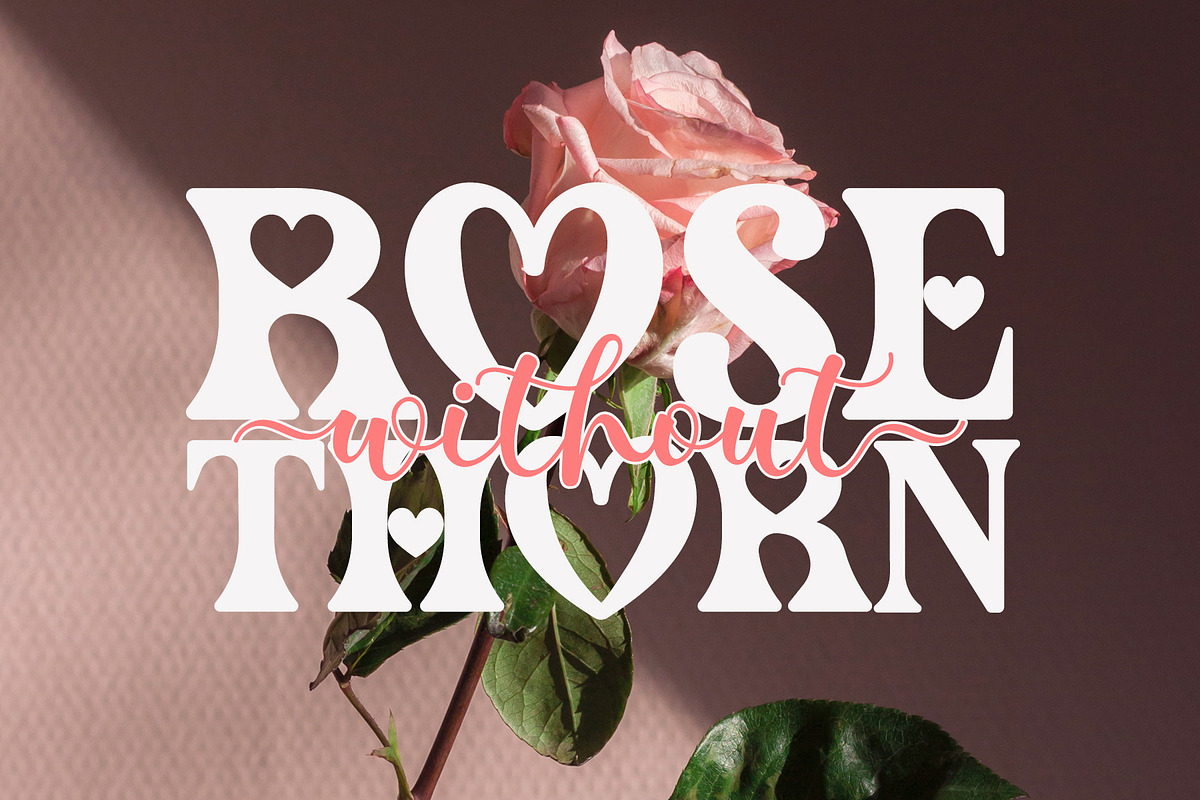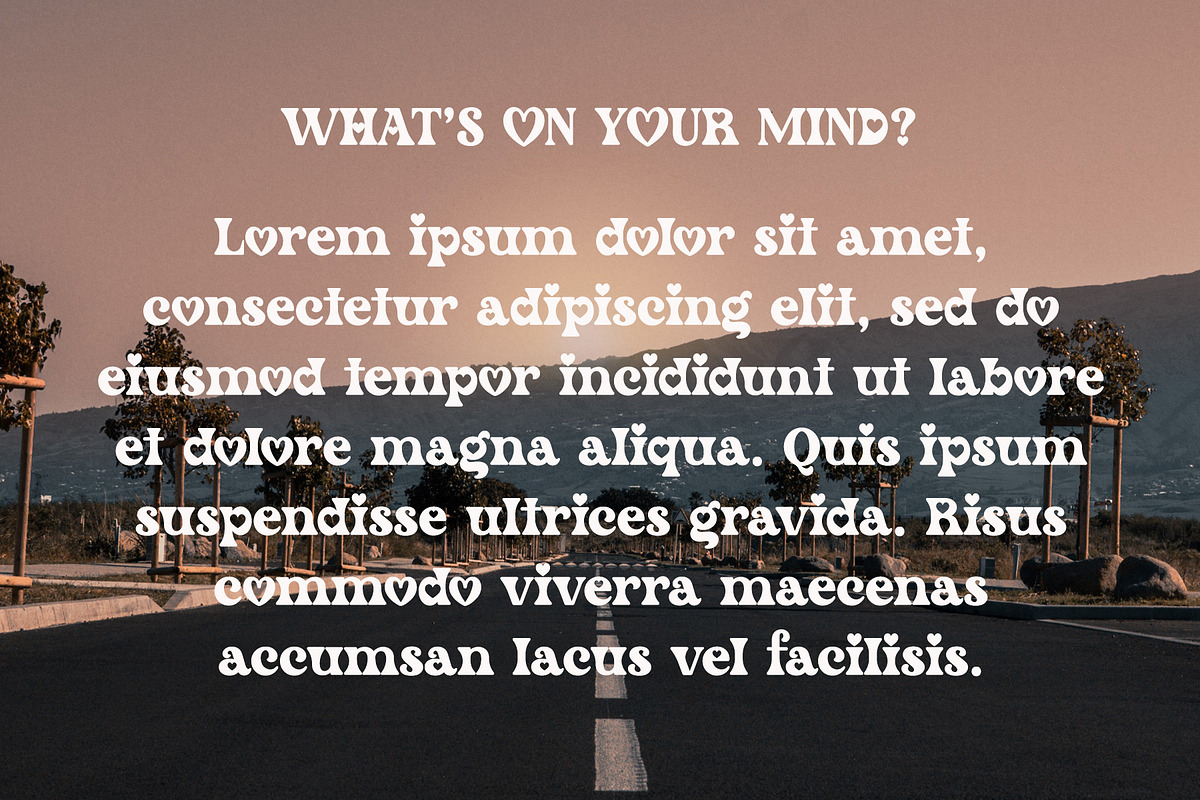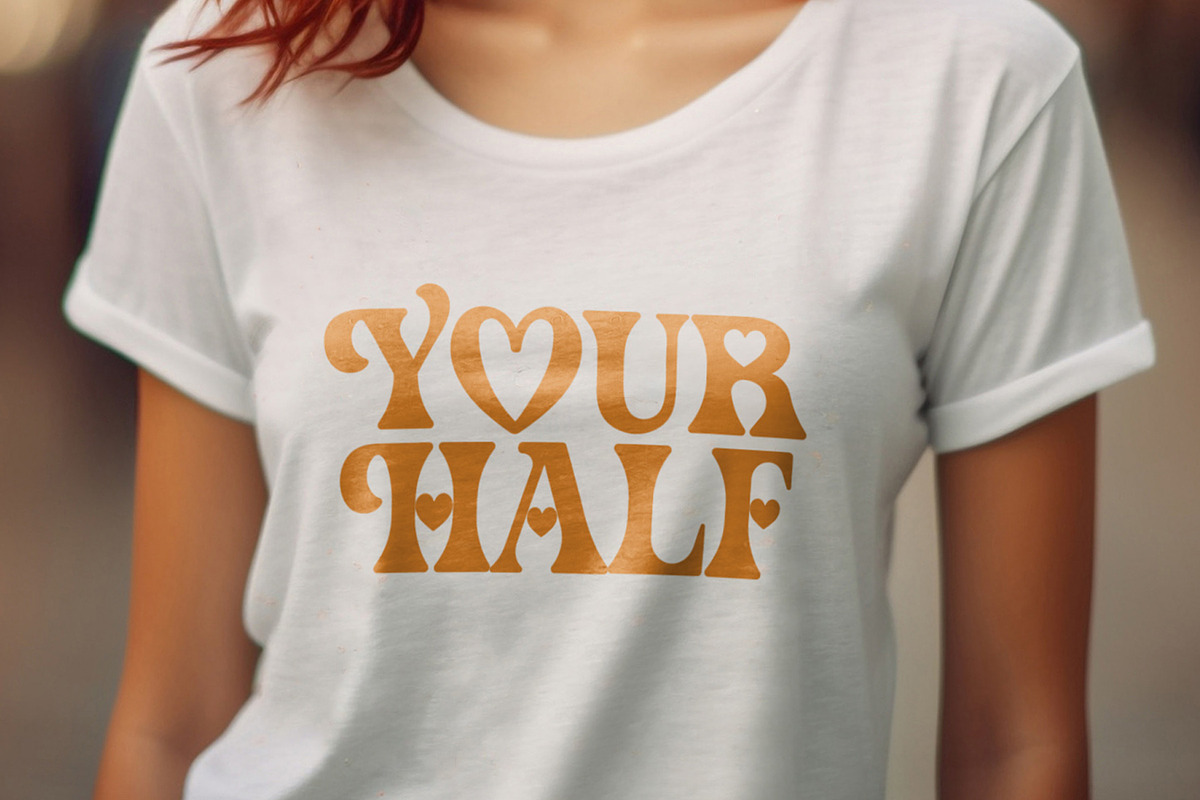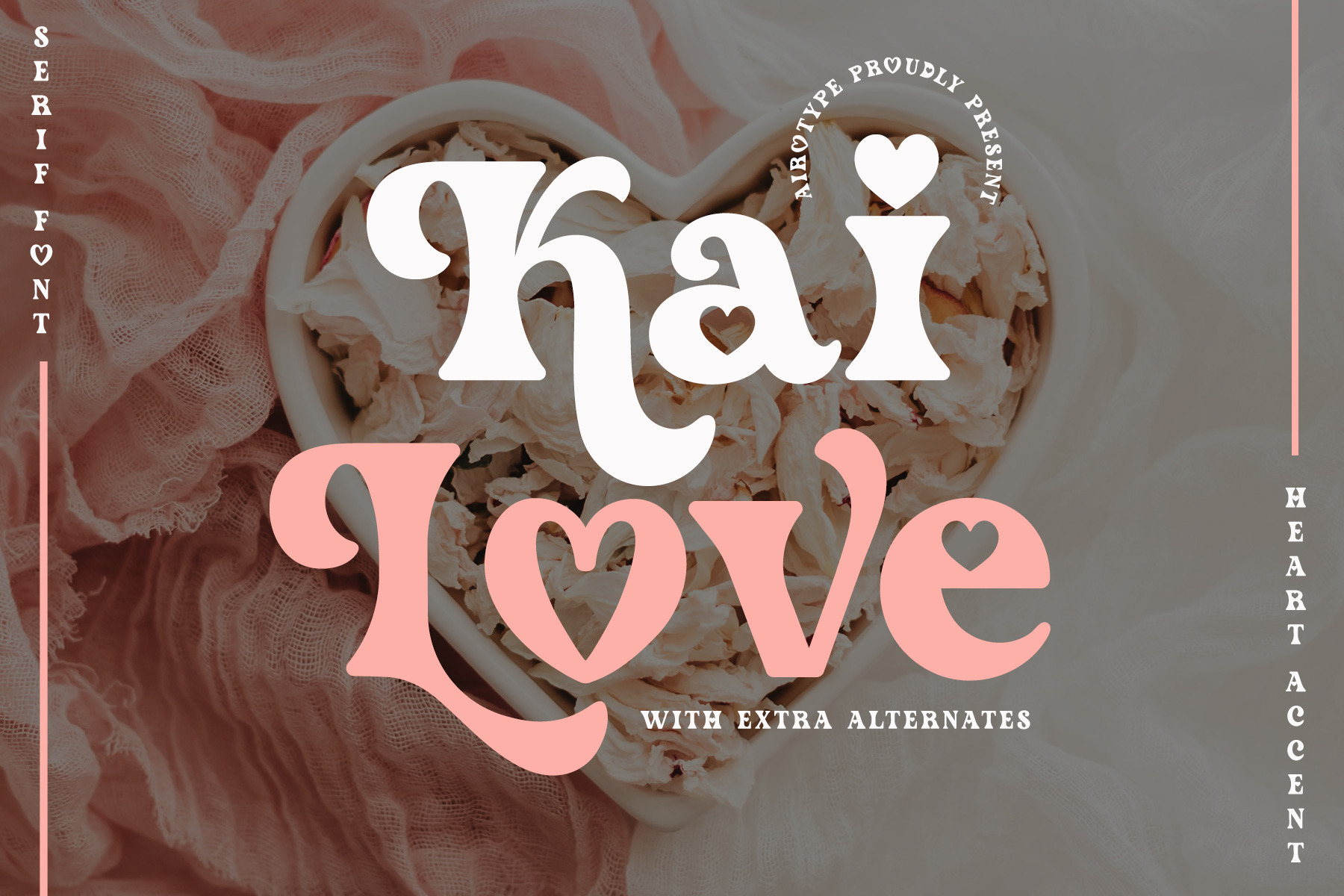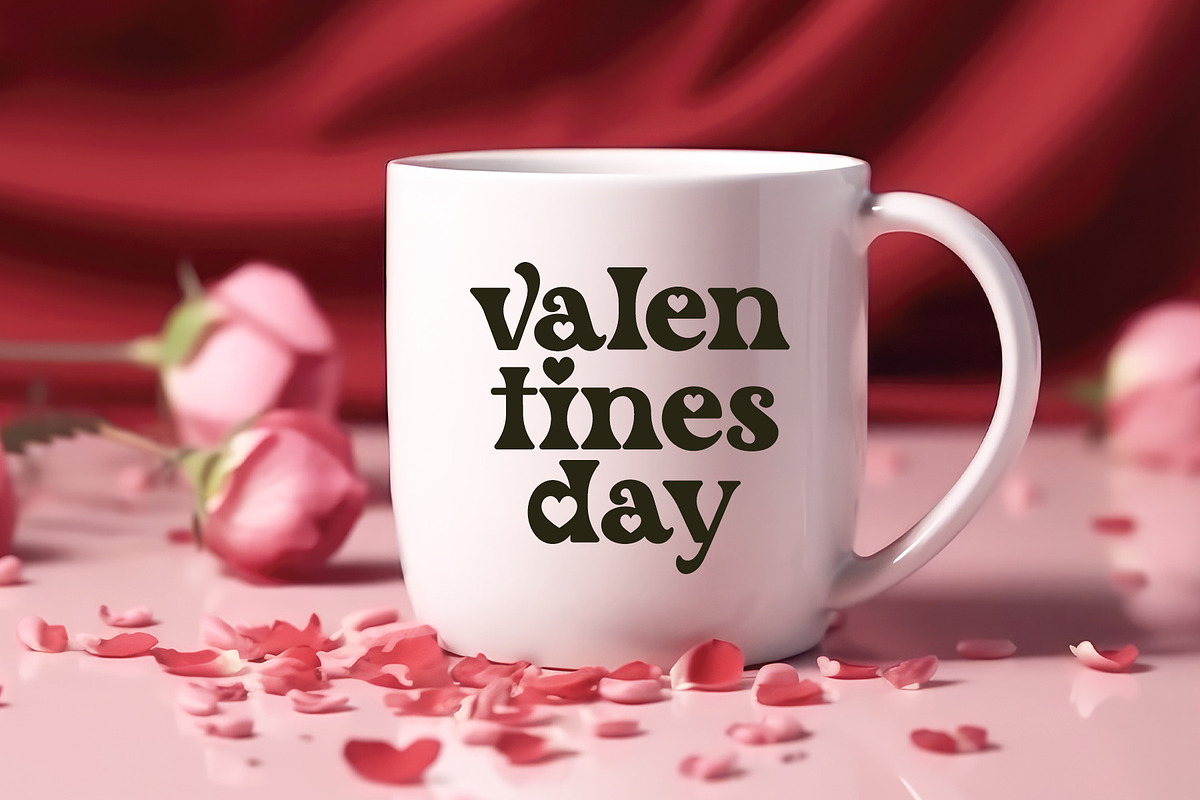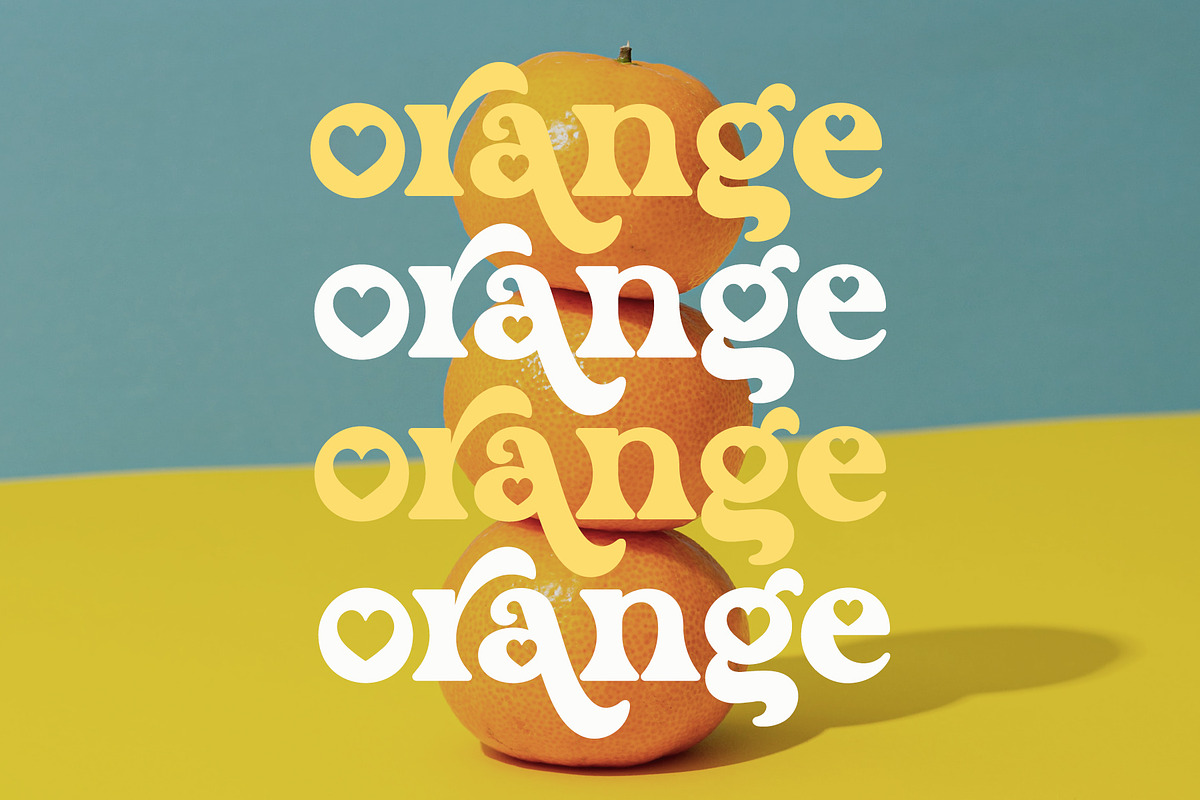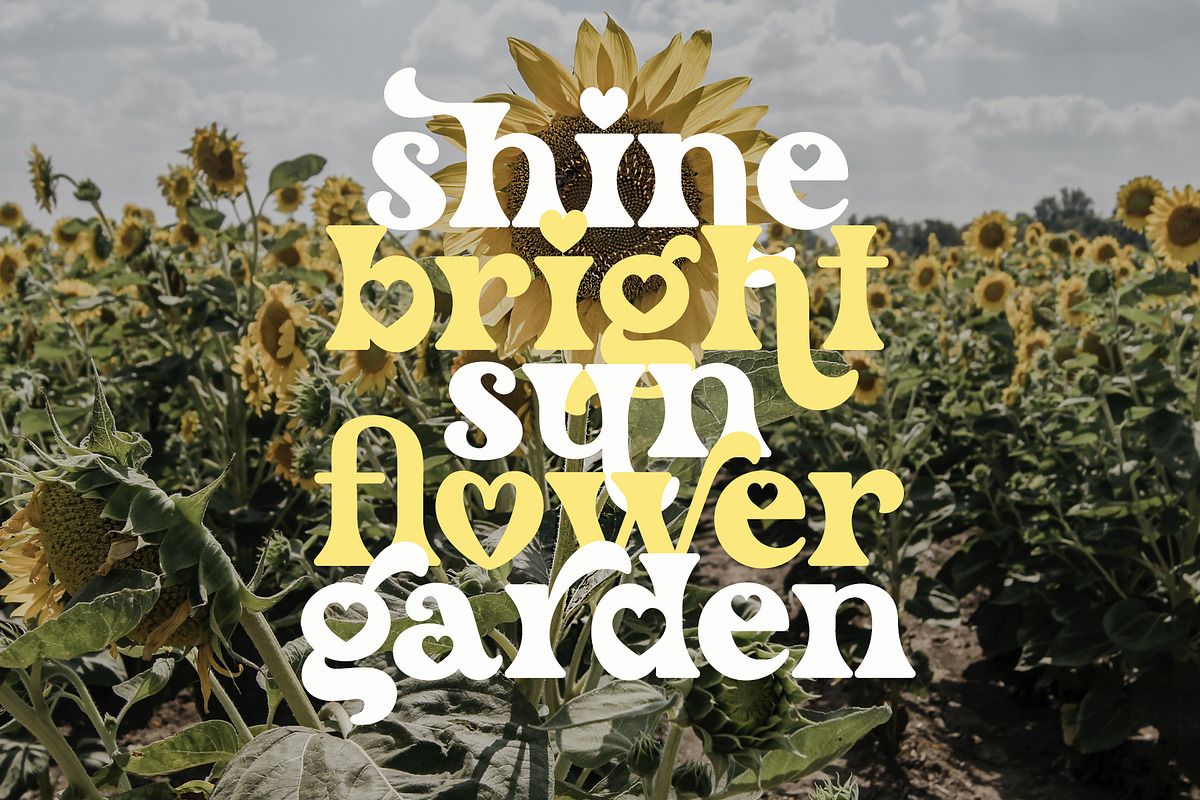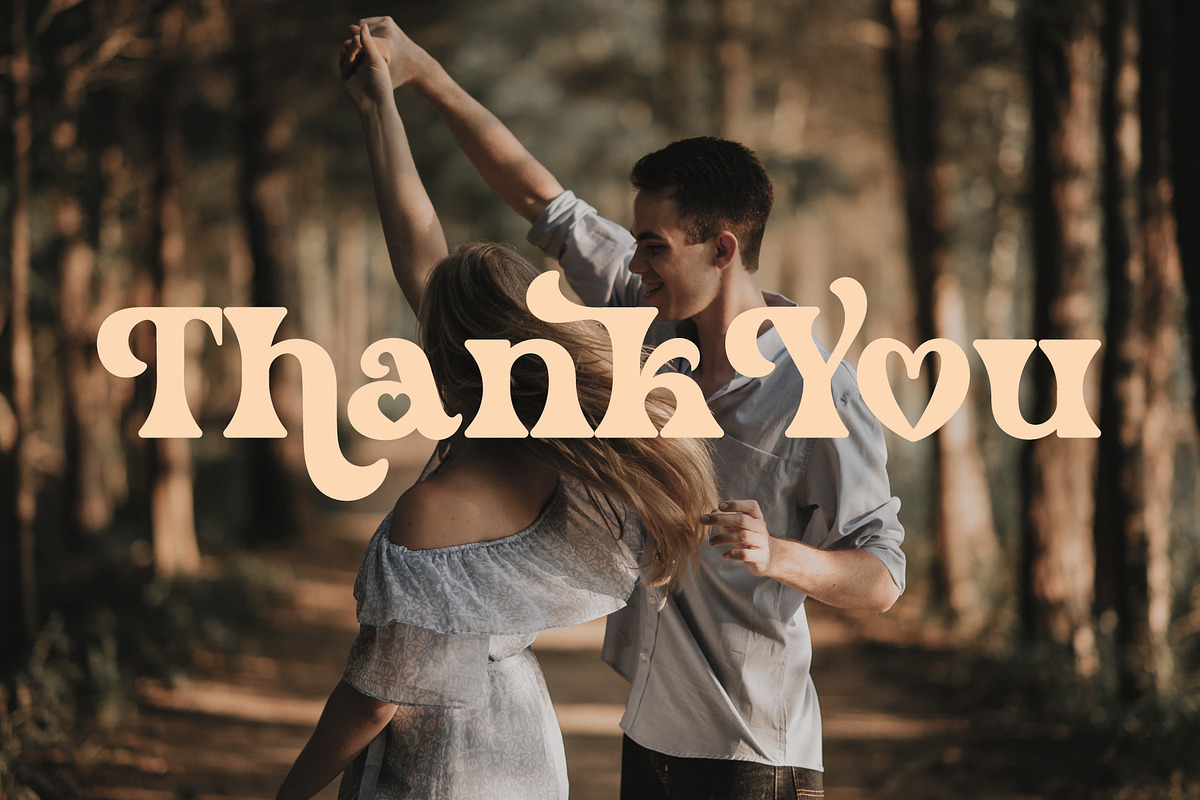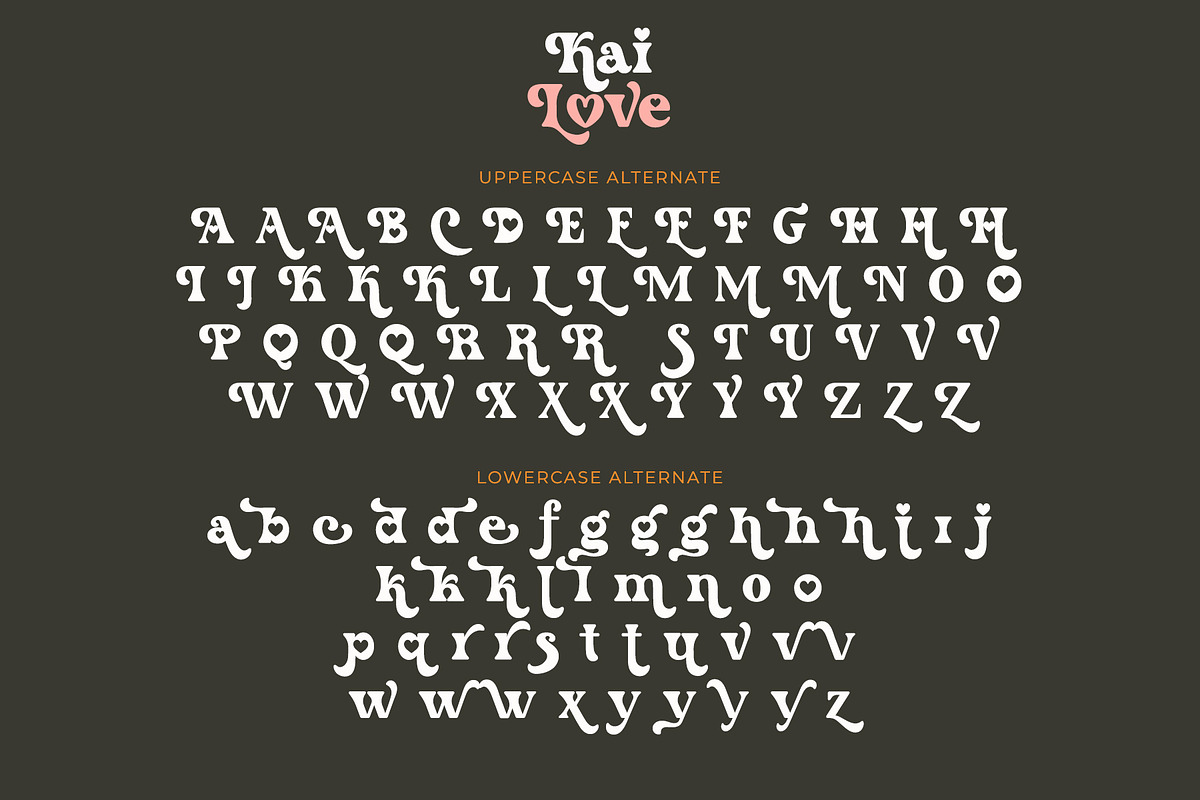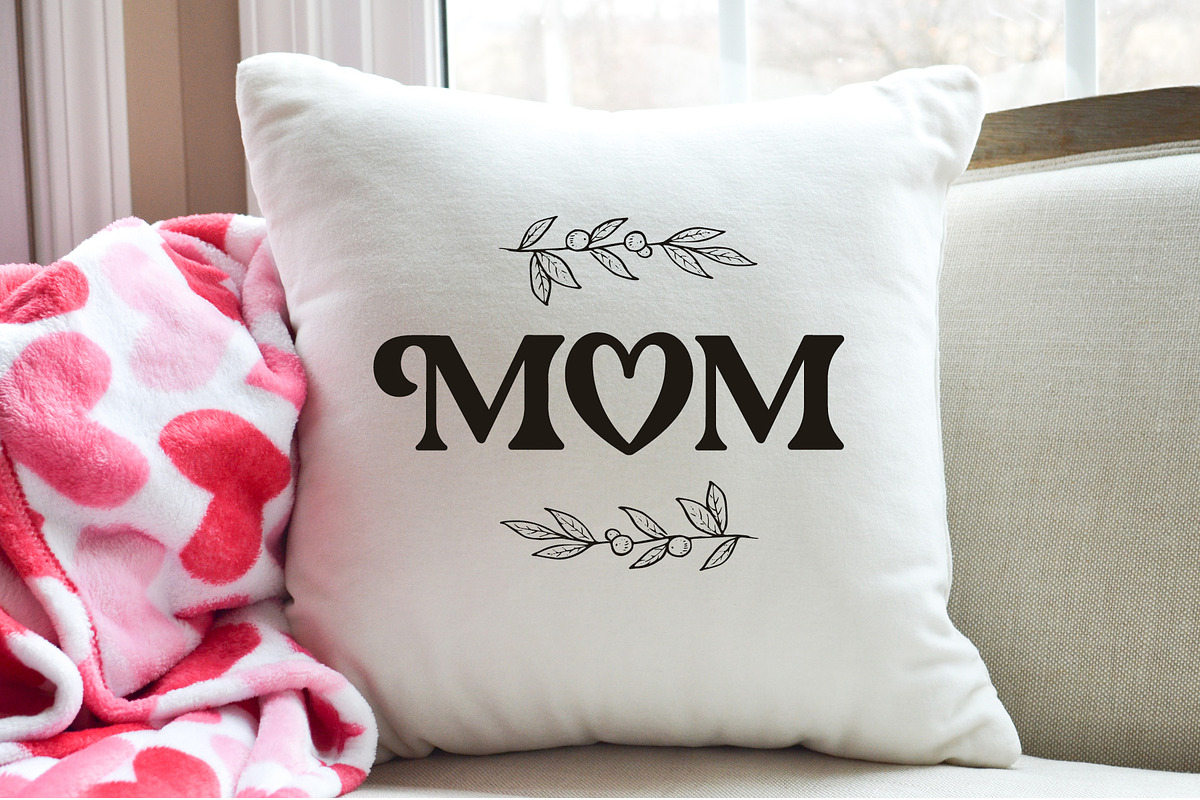
Kai Love - Serif Font with Heart
Kai Love is modern serif font. This font is special font to celebrate love and affection because it has heart accent.
Kai Love has modern, vintage, and lovely feels.
It is beautiful and elegant font that will deliver love and vintage vibes in your design. It can be used for wide ranges of design, such as valentine's day, crafting, stickers, t-shirt, sublimation, quotes, and many more.
- Uppercase and Lowercase (include extra glyphs/alternate)